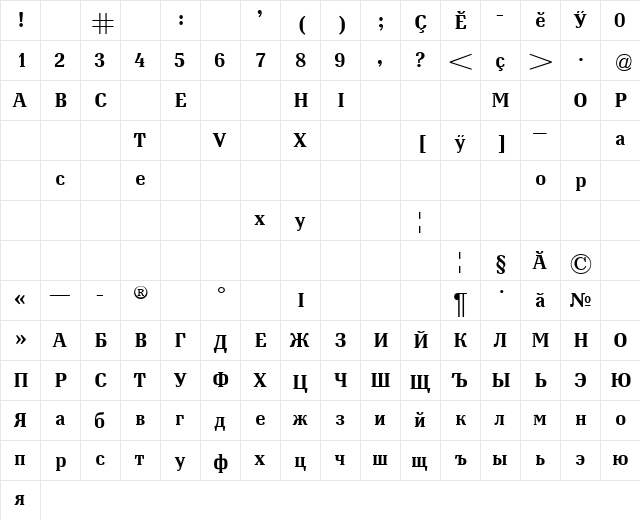
Gazetnaja3 Chu CNP Normal
Design Context for Gazetnaja3 Chu CNP Typeface
Gazetnaja3 Chu CNP offers clean, dependable letterforms without strong stylistic allegiance, making it a practical choice for designers who need flexibility.